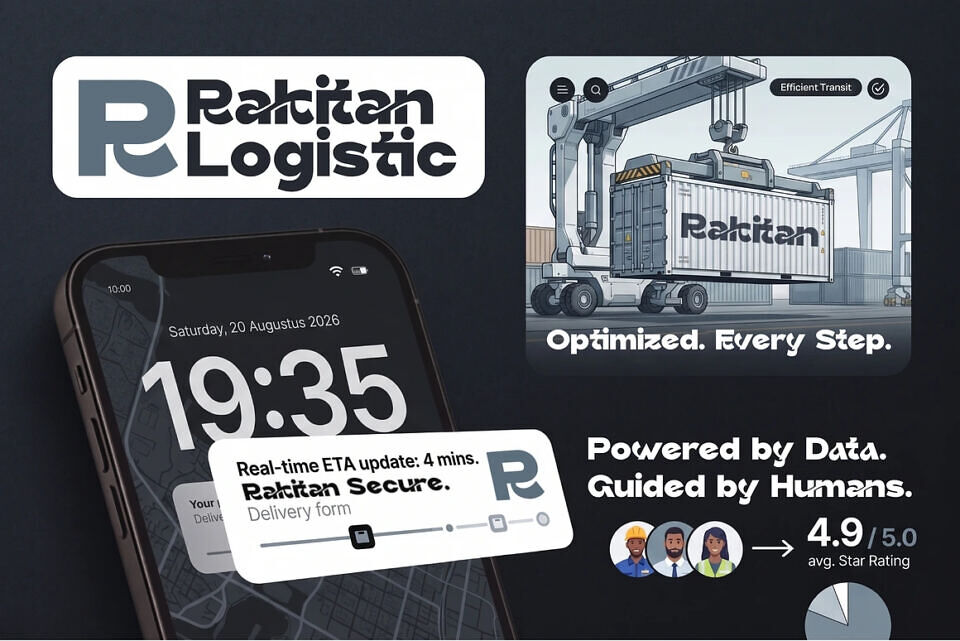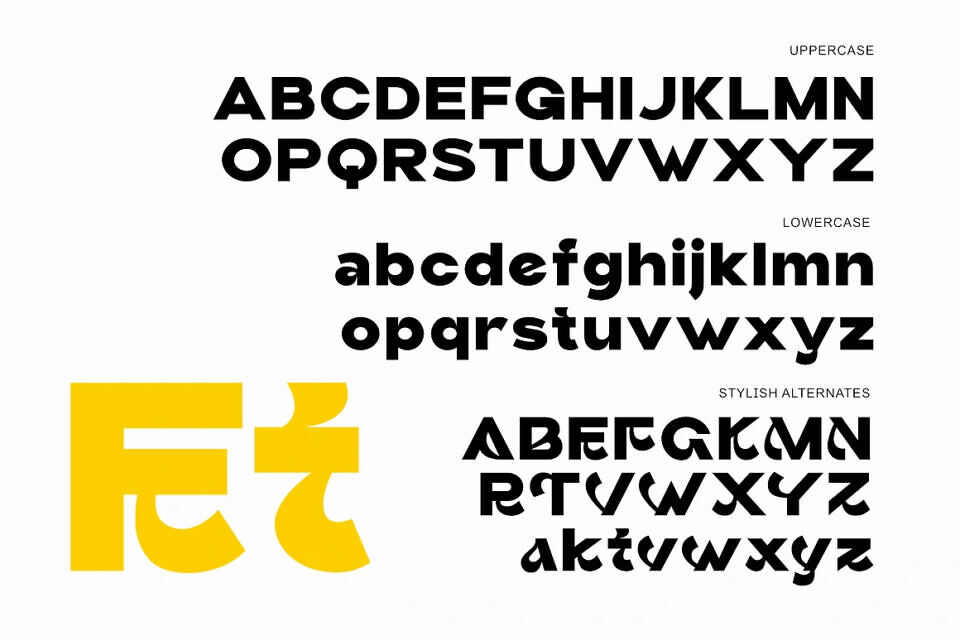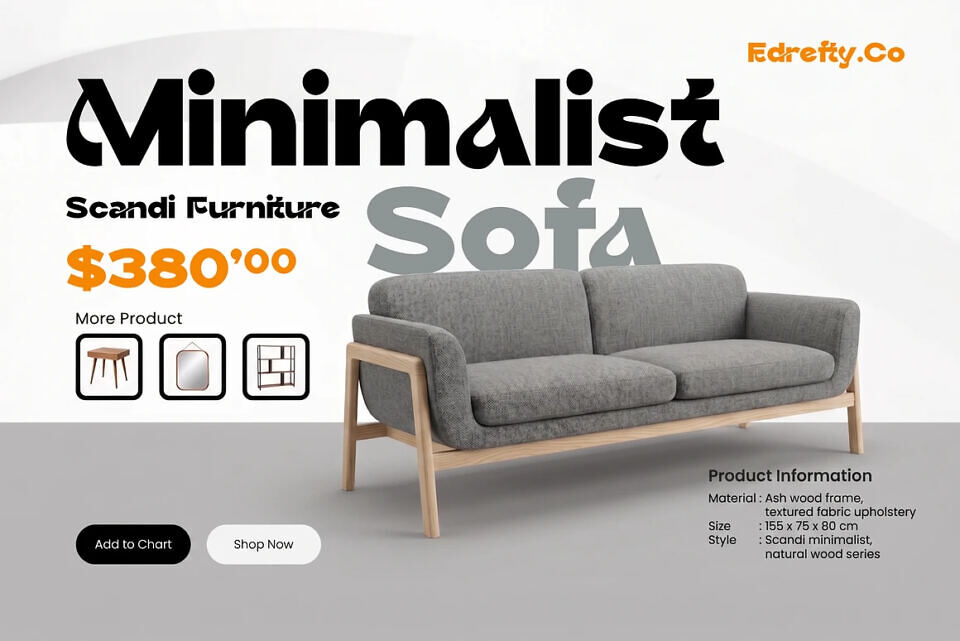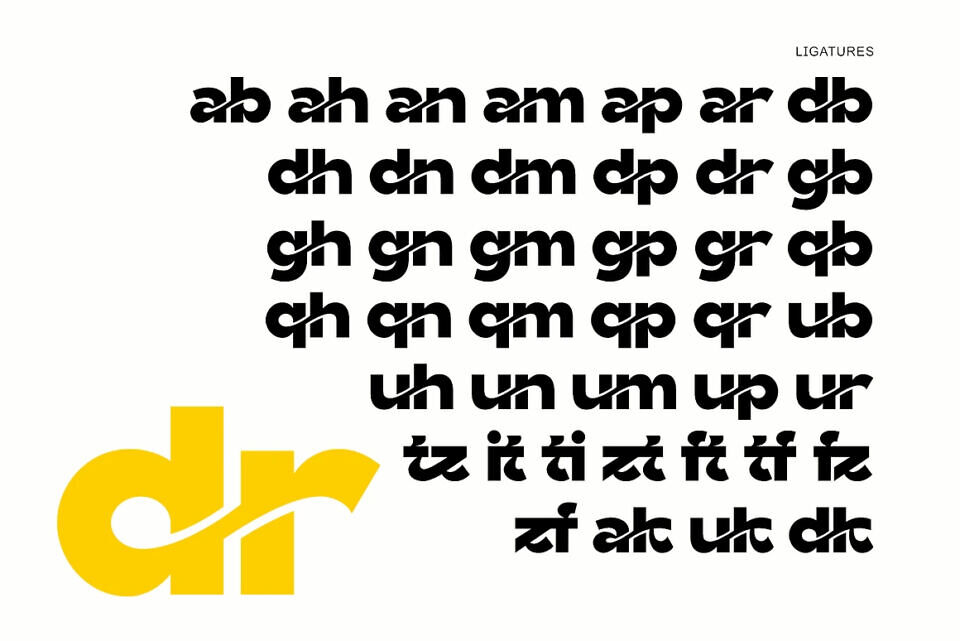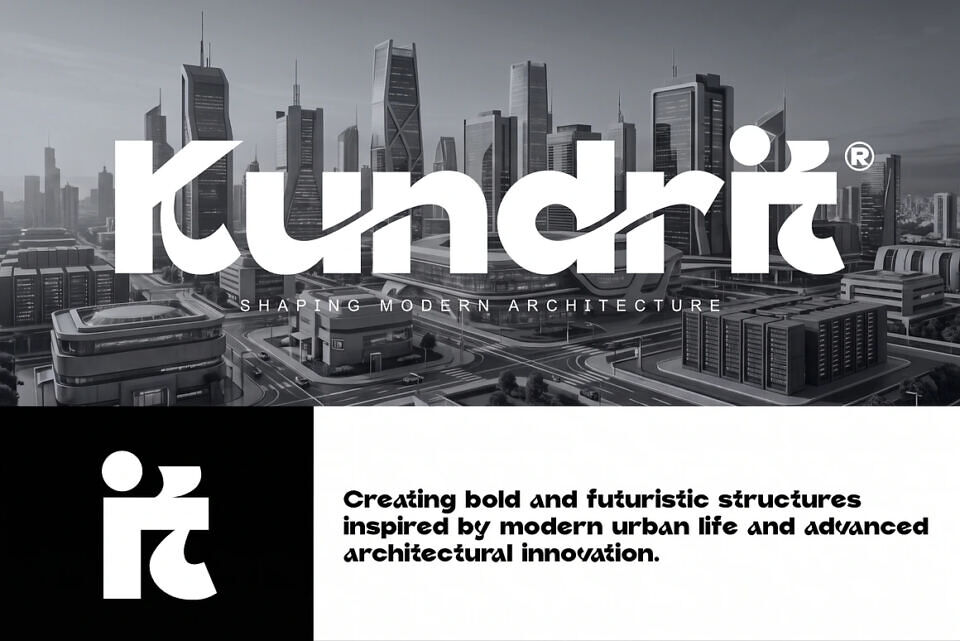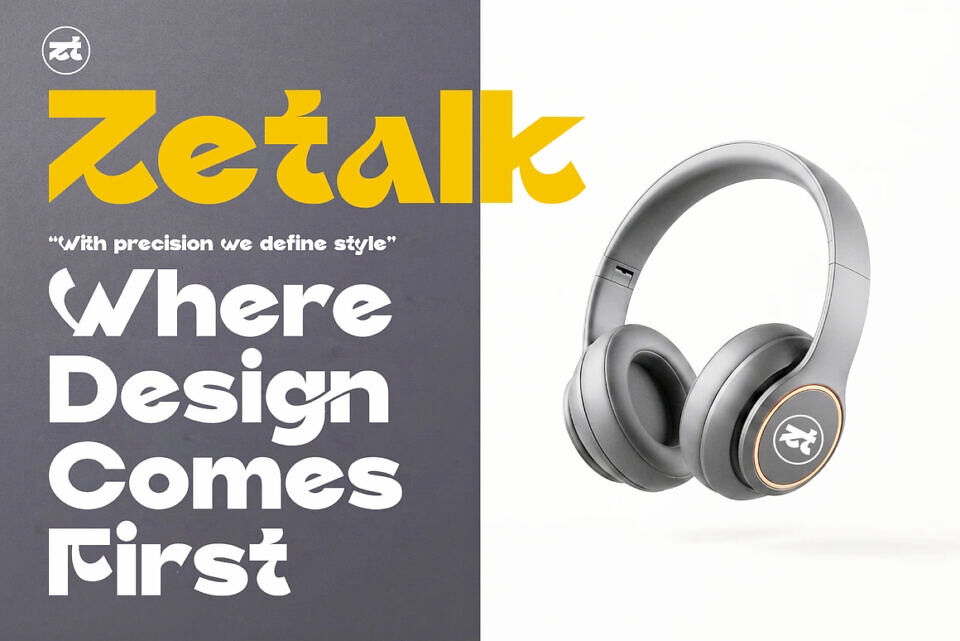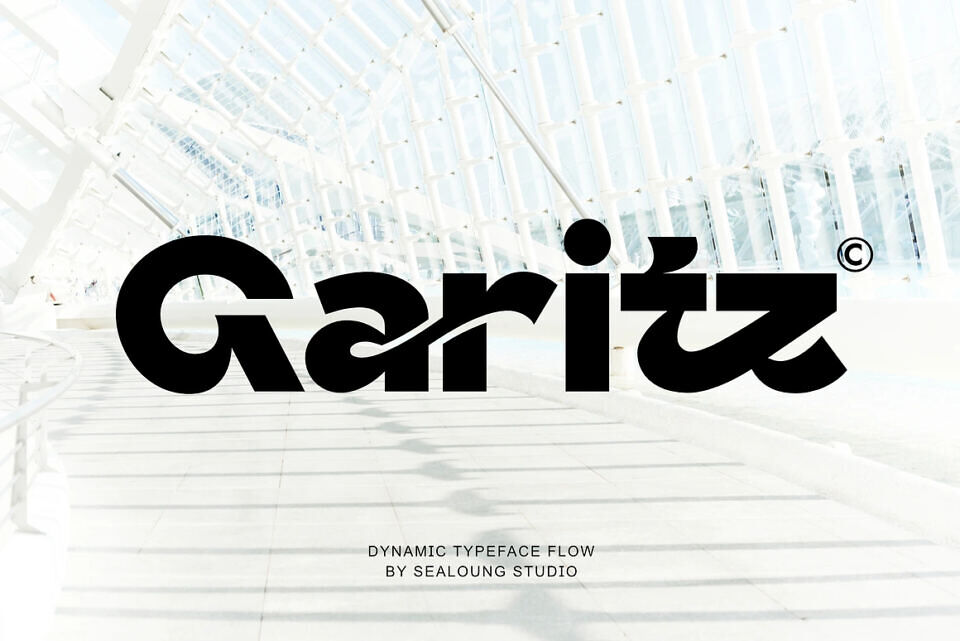
Garitz Font
Garitz is a bold and modern typeface designed with a unique flowing ligature style that creates a seamless visual connection between characters. With its smooth curves and dynamic structure, Garitz delivers a strong yet elegant personality perfect for brands that want to stand out with a contemporary edge.
This typeface blends minimalism with artistic motion, making it highly versatile for a wide range of creative projects. Whether you’re working on branding, logos, fashion labels, or editorial layouts, Garitz brings a distinctive and memorable look.